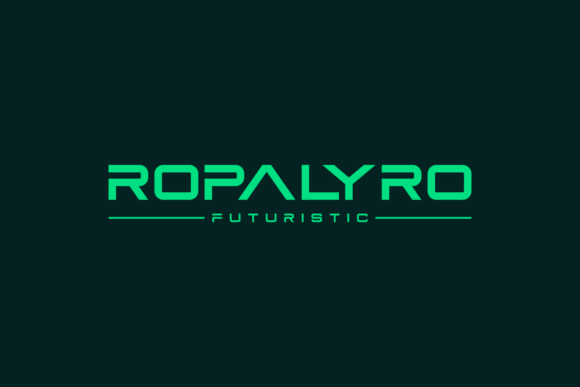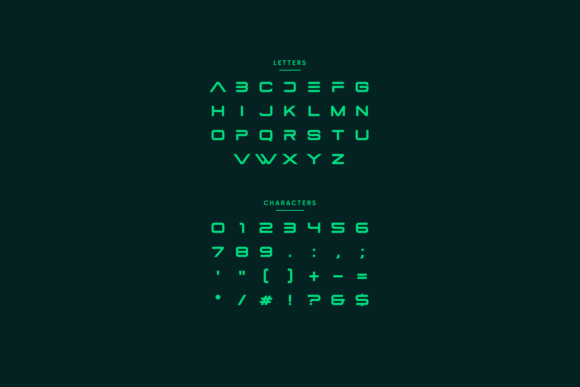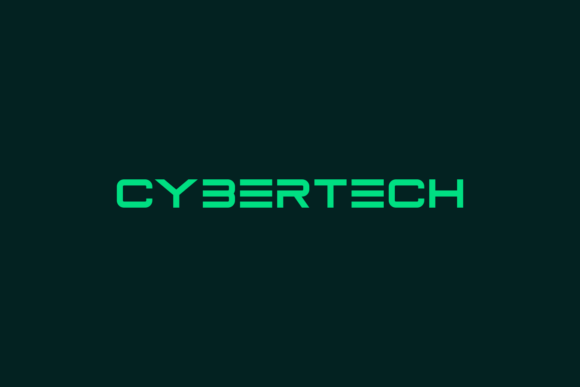
Merome Font – Free Download
Introduction to Merome Font
Merome is a unique all-caps based font that will make your design look futuristic and modern, using a simple design to make it look clean and elegant.
| ๐ค Author | adabsubandi |
You can use this font for any purpose, especially for creating future designs This font would be great for logo designs, posters, magazines, headlines and many other designs, itโs a very sophisticated font that will make your designs stand out.
Merome Font offers exceptional quality and versatility, making it a valuable addition to your design toolkit. Whether you’re creating for personal projects or commercial use, Merome Font delivers professional results.